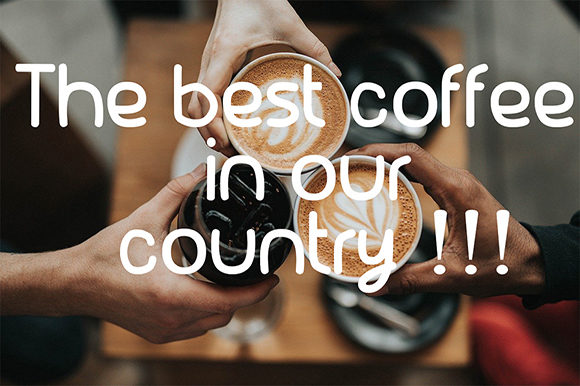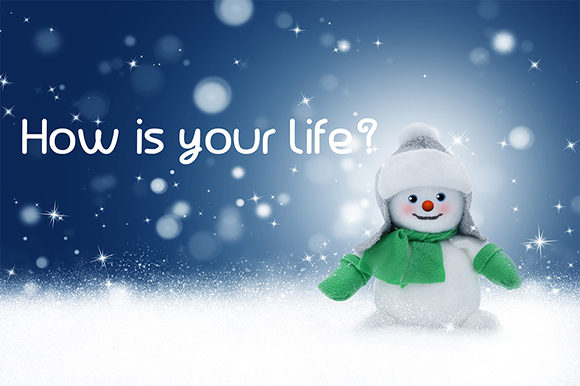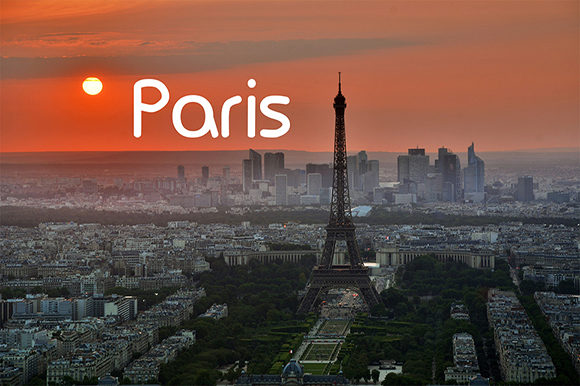
Introduction to Maryn Font
Have you ever stared at a blank page, searching for the perfect font to bring your creative project to life? It’s a moment we’ve all experienced – the spark of inspiration, the excitement of possibilities, and the thrill of watching our ideas take shape. For designers, finding the right font can be the difference between a good design and a great one.
That’s where Maryn Font comes in – a sweet and friendly handwritten font that’s about to become your new go-to design resource. Its natural and unique style makes it incredibly fitting for a wide range of creative projects, from logos and quotes to invitations and business cards. With Maryn Font, you can add a touch of warmth and personality to your designs, and take your projects to the next level.
Key Features of Maryn Font
- High-quality font with a transparent background, ideal for creative projects requiring a clean and modern design.
- Includes 100 unique characters, including uppercase and lowercase letters, numbers, and special symbols.
- Designed to be highly legible at various resolutions and sizes, from 12px to 72px.
- Perfect for use in graphic design, digital art, and typography-based projects where a unique and modern font is required.
- Comes in a single size, but its versatility allows it to be scaled up or down to suit various design needs.
Honest Review: Maryn Font
As a designer, I’m always on the lookout for high-quality design resources to elevate my creative projects. The Maryn Font is one of the most promising fonts I’ve come across recently. One of the standout features is its transparent background, which makes it incredibly versatile and easy to work with.
- ✨ Wide range of styles: Maryn Font offers a diverse set of styles, from elegant script to modern sans-serif, making it perfect for a variety of creative projects.
- ✨ High-quality design: The font’s crisp and clean design ensures that it looks great on any background, from dark to light.
While the Maryn Font is a solid choice for many design projects, there are some limitations to consider. ⚠️ Limited language support: The font may not support certain languages, which could be a concern for designers working on international projects.
Overall, I’m impressed with the Maryn Font’s high-quality design and versatility. It’s a great addition to any designer’s toolkit, especially for those working on creative projects that require a touch of elegance and sophistication.
Tips for Getting the Most Out of Maryn Font
For a transparent background, use the font on a white or light-colored background. Experiment with different font sizes and styles to add visual interest to your design. Consider combining Maryn Font with other design resources to create a unique and creative project.
Common Use Cases for Maryn Font
Maryn Font is ideal for use in creative projects such as logos, posters, and social media graphics. Its high-quality design and versatility make it a popular choice among designers and creatives.
Can I customize Maryn Font to fit my design needs?